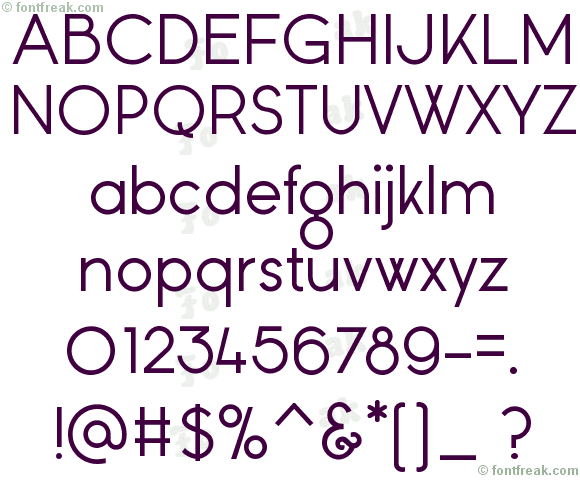
Wilmina
About Wilmina
Wilmina, designed by Giulia Ursenna Dorati, is a modern sans-serif font that seamlessly blends elegance with functionality. This typeface features a clean and minimalist aesthetic, characterized by its balanced stroke weight and subtle contrast, making it versatile for various design applications. The letterforms exhibit a smooth, uniform spacing, which enhances readability while retaining a contemporary flair. With its simplistic yet sophisticated structure, Wilmina is ideal for numerous projects, from branding to editorial design.
This font shines in specific use cases such as wedding invitations, where its refined look adds a touch of sophistication. It is also perfect for restaurant menus, providing a modern appeal that captures diners' attention. Graphic designers can leverage Wilmina for website headers and logos, as its clarity and style communicate professionalism and creativity. Additionally, content creators will find it suitable for social media graphics, ensuring their posts stand out while maintaining a polished appearance.
The target audience for the Wilmina font includes graphic designers, small business owners, and content creators who seek a reliable and stylish typeface for their projects. Its freeware license allows for easy access, making it an appealing choice for those working on a budget or looking to explore new typographic possibilities.
What sets Wilmina apart is its blend of simplicity and elegance, allowing it to adapt across various contexts without losing its distinctive character. The font's modern design and versatility make it an excellent addition to any creative toolkit. For those interested, the Wilmina font free download offers a fantastic opportunity to elevate your design work with a typeface that is both aesthetically pleasing and practical.